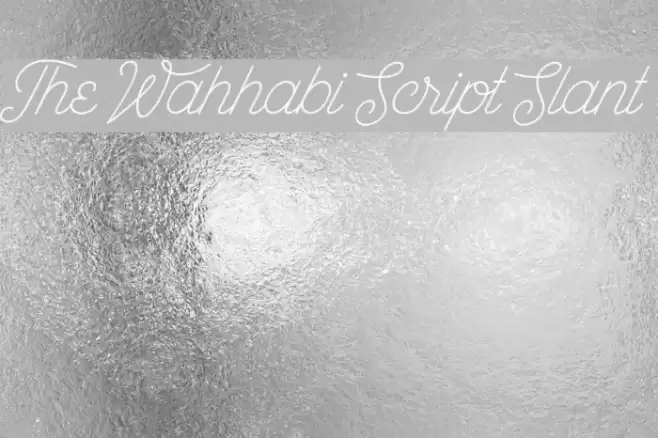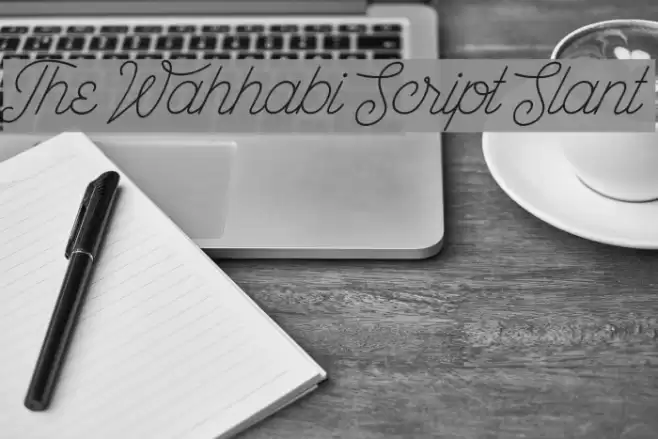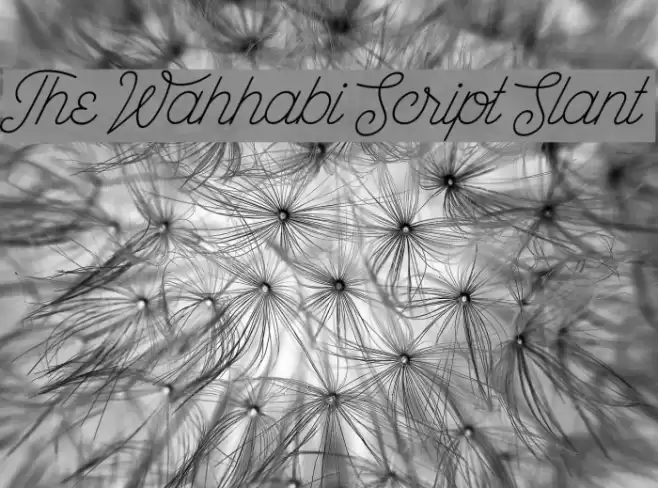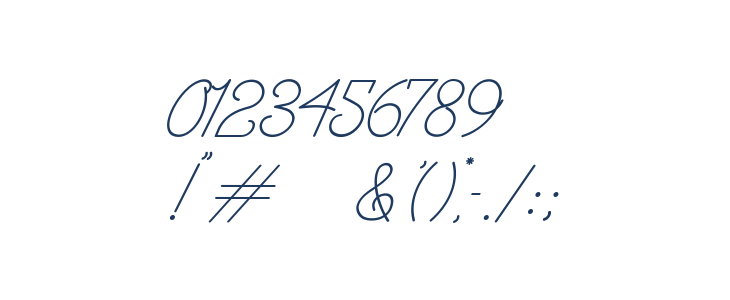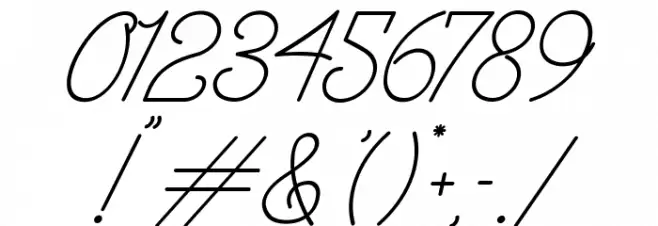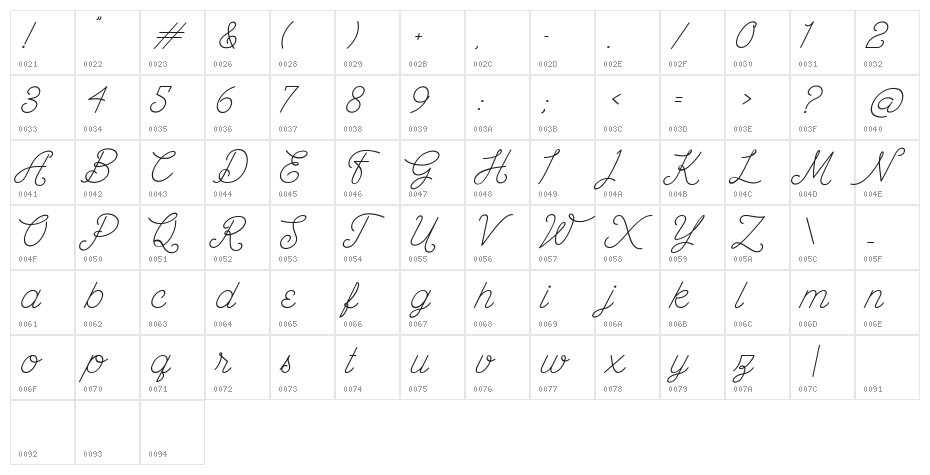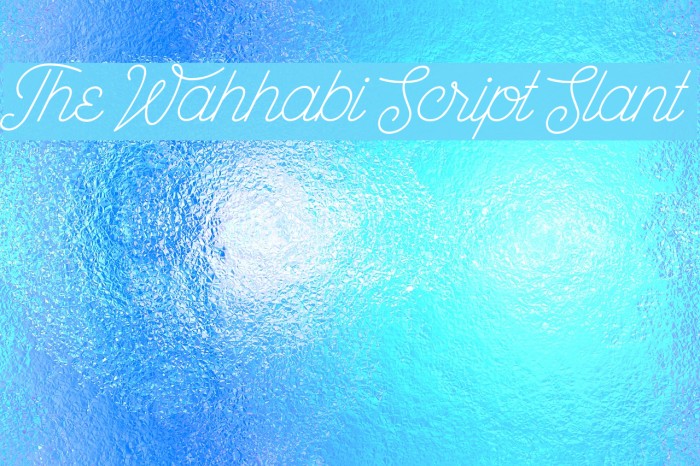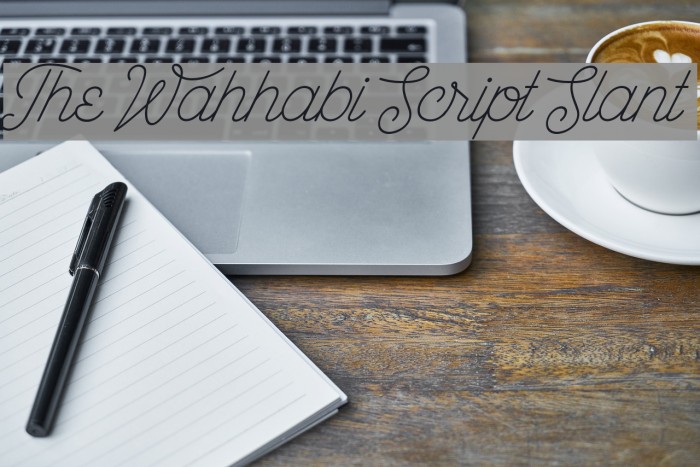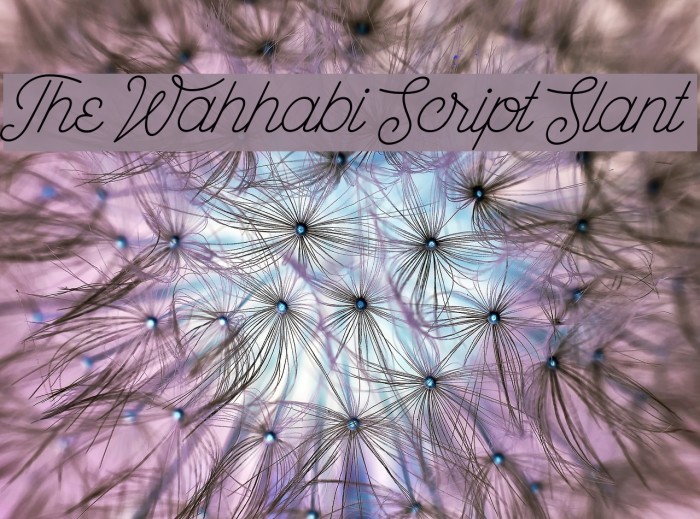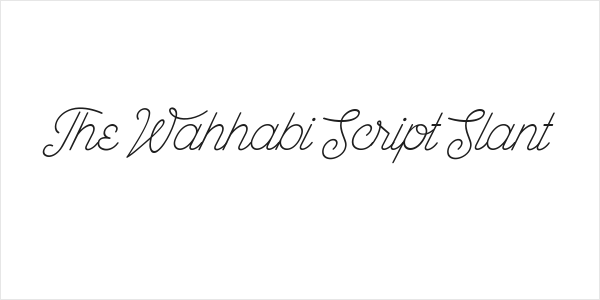
The Wahhabi Script Slant Font
The Wahhabi Script Slant Description
This elegant script font features a flowing, cursive style with a distinct slant, giving it a sense of motion and grace. The uppercase letters are ornate, with intricate loops and swirls, while the lowercase letters maintain a more streamlined appearance, enhancing readability. The numerals are consistent with the script style, offering a cohesive look across all characters. Special characters are thoughtfully designed, integrating seamlessly with the overall aesthetic. This font exudes sophistication and is ideal for projects that require a touch of elegance and flair.
A graceful, slanted script font with ornate uppercase and streamlined lowercase letters from Uncategorized fonts.
- Proposed Projects: Ideal for wedding invitations, elegant branding, personal stationery, and decorative headlines.
- Overall Style: Elegant
- Use Case: Headlines, Invitations, Branding